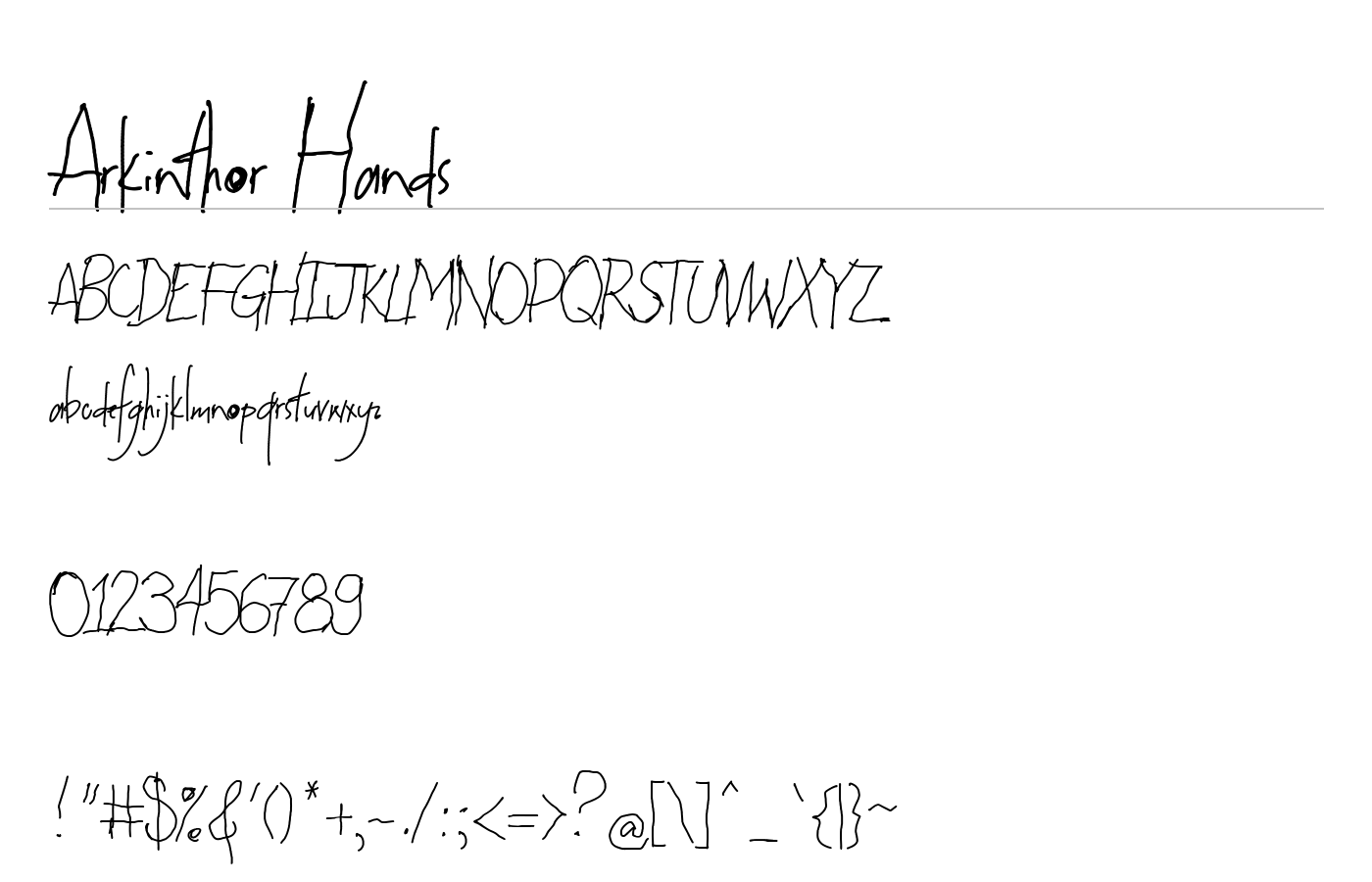
Arkinthor Hands is a thin, delicate handwritten font that conveys a quirky, personal touch with its irregular, slightly erratic letterforms. Its narrow width and tall, slender characters give it a unique, artistic feel, making it ideal for creative projects that want to express individuality and charm. This font works well for informal branding, invitations, and artistic headlines where a distinctive, hand-crafted style is desired.
Arkinthor Hands Font
About Arkinthor Hands Font